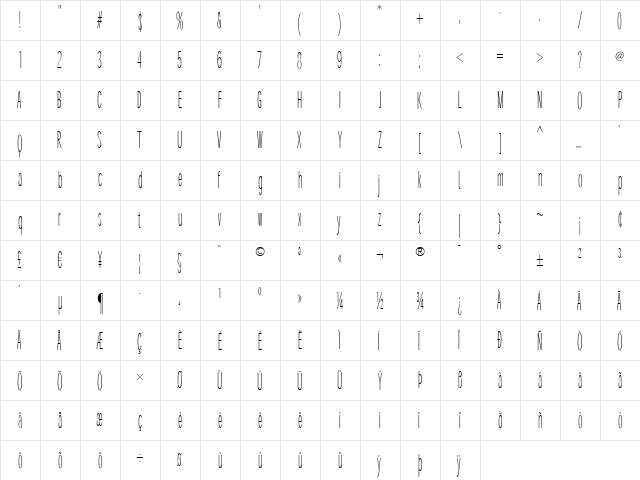
SantanaXtraCondensed Regular
Design Context for SantanaXtraCondensed Typeface
SantanaXtraCondensed takes a measured approach to typography — its balanced proportions and neutral character make it a reliable workhorse for both digital and print work. Its narrow stance lets it pack a punch even in space-constrained designs.